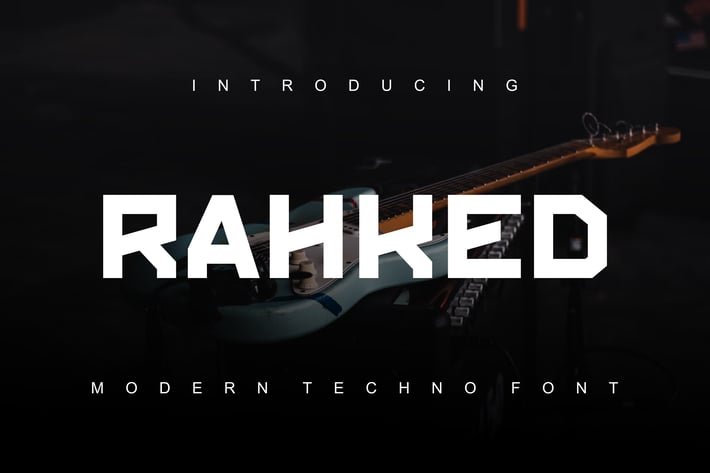
Rahked Font
Introducing our new product Rahked Font - Modern Font
Rahked Font - Modern Font is a bold and authentic display font. The font is suitable for any branding project like logo, esport, and many more. outstanding in a wide range of contexts.